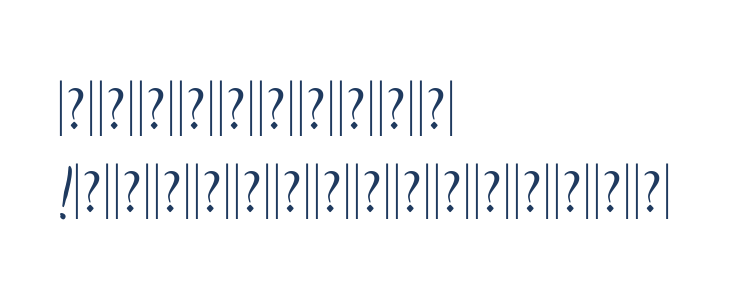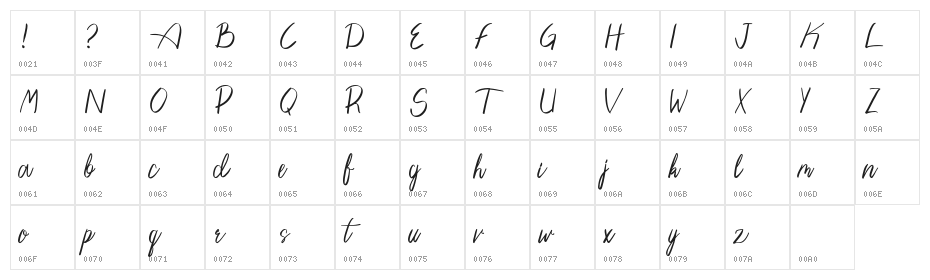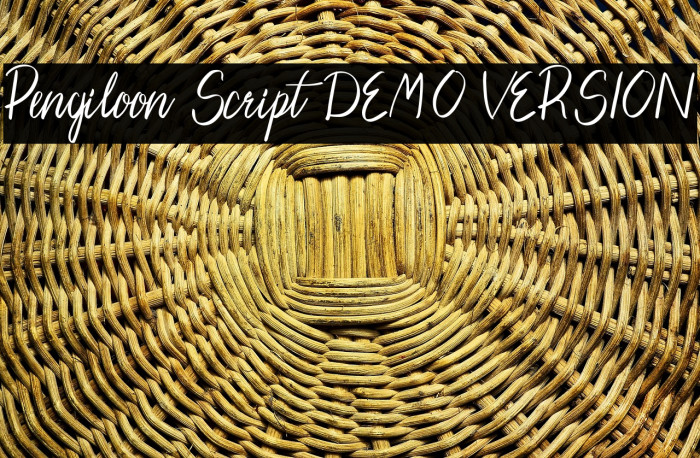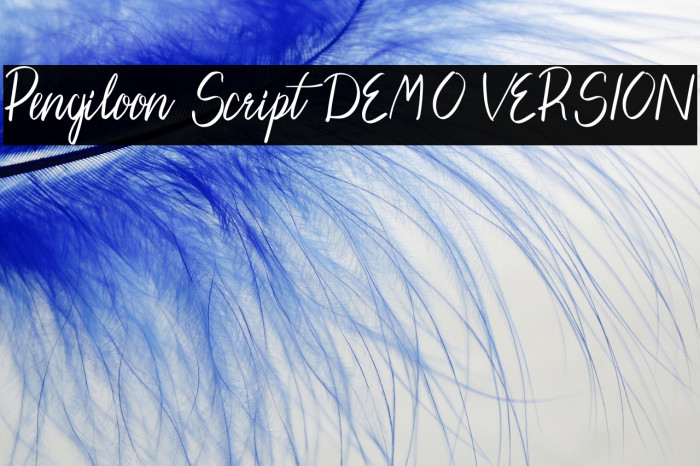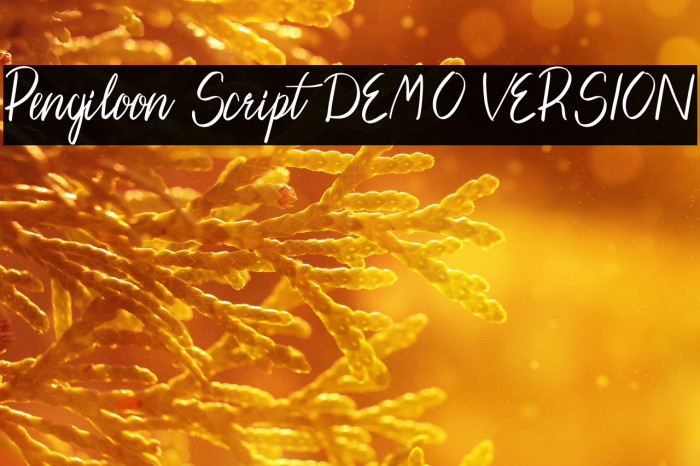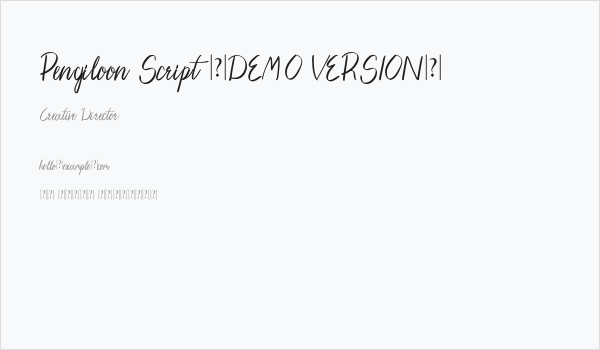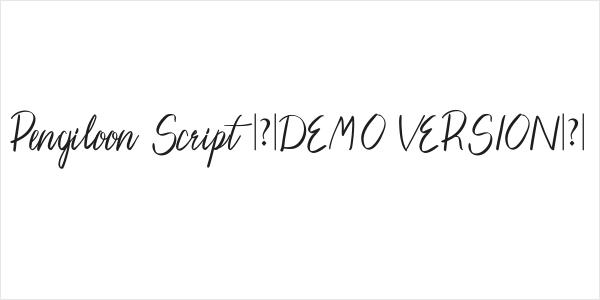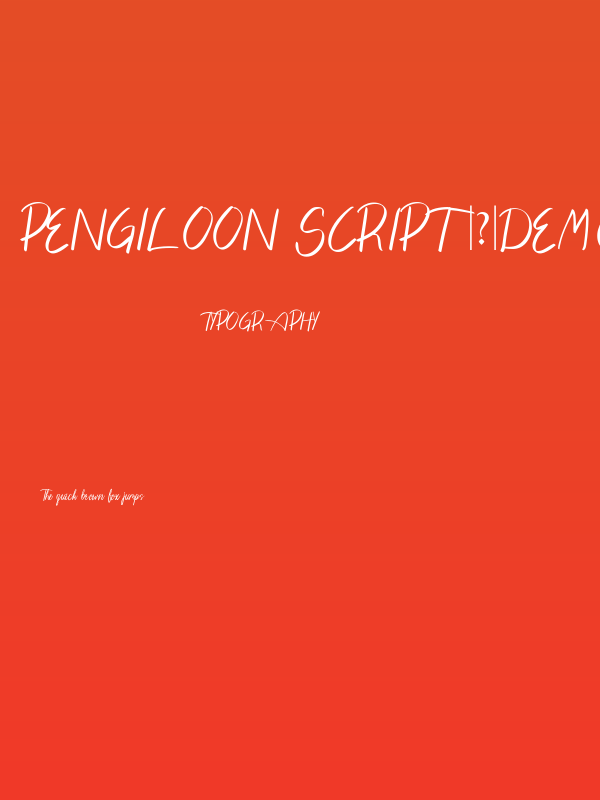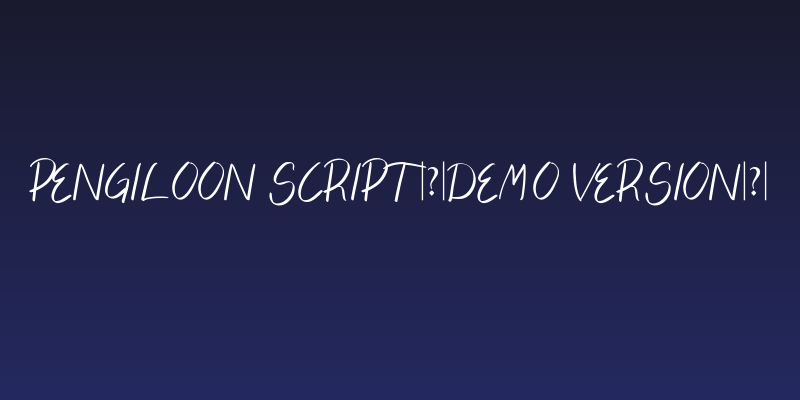
Pengiloon Script [DEMO VERSION] Font
Pengiloon Script [DEMO VERSION] Description
This font exudes a lively and dynamic character with its flowing script style. The letters are elegantly connected, creating a sense of movement and fluidity. The uppercase characters are bold and slightly slanted, while the lowercase letters maintain a consistent rhythm with their cursive forms. The strokes vary in thickness, adding a touch of sophistication and artistic flair. This font is perfect for projects that require a personal and handwritten touch, such as invitations, greeting cards, or branding materials. Its playful yet refined appearance makes it versatile for both formal and casual settings.
| Proposed Projects | Ideal for invitations, greeting cards, branding materials, and personal projects. |